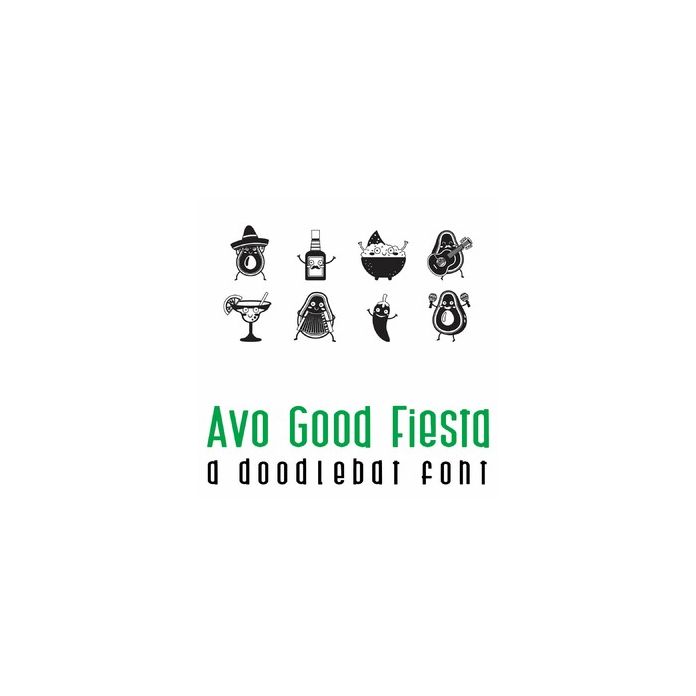
This fun doodlebat font features 26 avocados ready to party. Perfect for parties, Cinco de Mayo, cards, crafts, gifts, decor, scrap book pages, planner stickers and more!